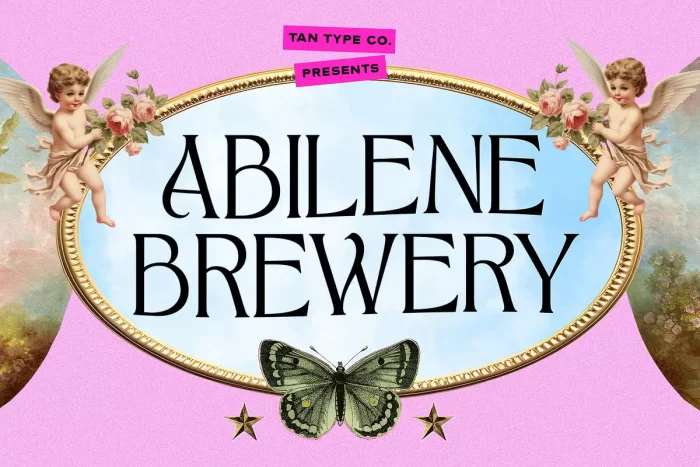
Tan Abilene Brewery Font
TAN – ABILENE BREWERY is another elegant serif you can choose from our ever extending library of typefaces. Classic with enough twist that makes it fun to play with.